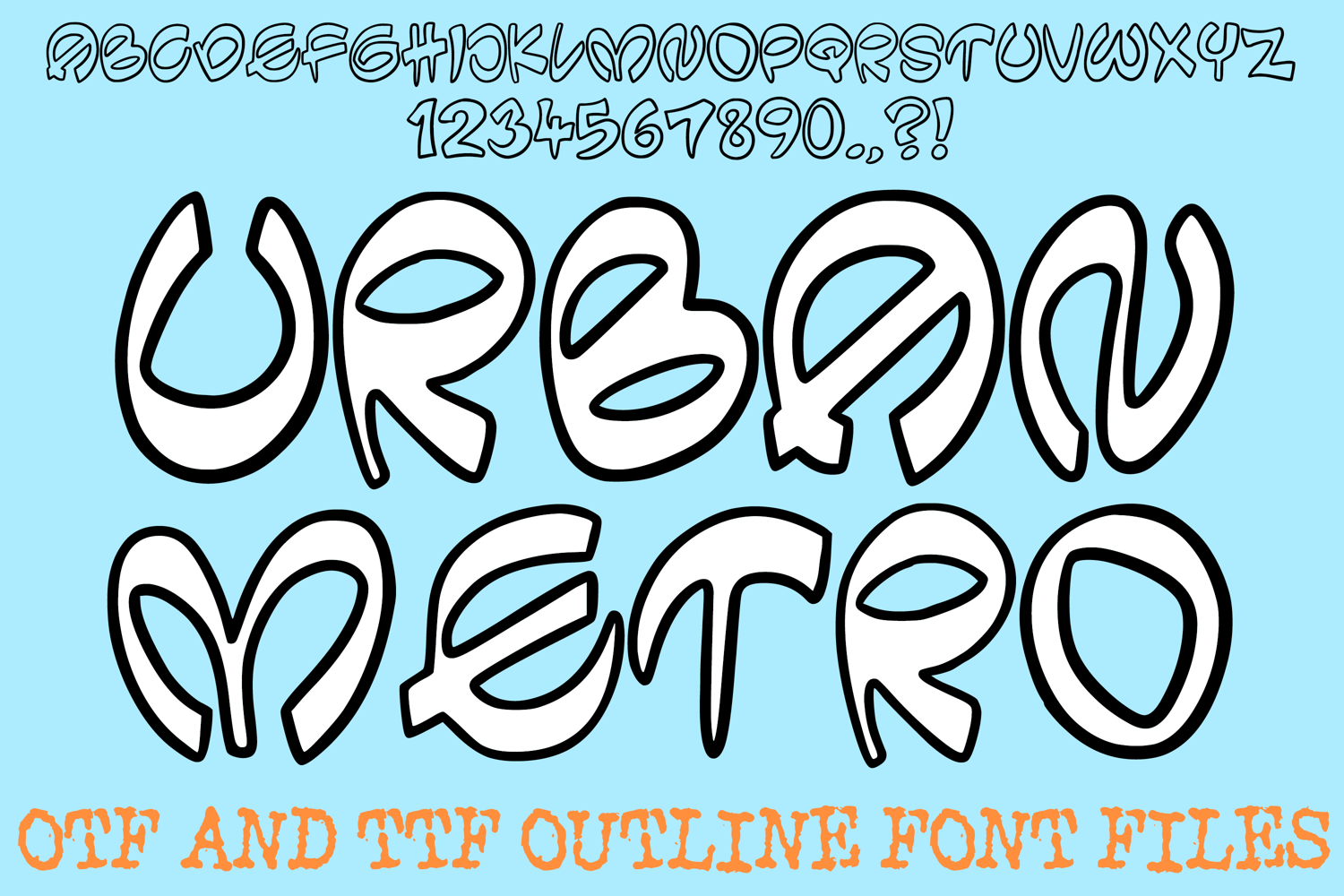
The Urban Metro Font is a dynamic, rhythmic display typeface that captures the fluid motion and raw energy of metropolitan street art. Characterized by its expressive, hand-drawn outlines and flowing transitions, this font is a premier choice for designers working on skate-culture branding, underground music flyers, modern apparel graphics, and high-energy social media content.
The design captures a sense of rapid, artistic movement, where the varying widths and stylized curves of each character suggest the speed and personality of a hand-inked tag. Whether you are building an identity for a city-based creative collective or designing bold headlines for a street-style lookbook, this font provides a handcrafted, urban aesthetic that is both edgy and remarkably legible.
Rhythmic Flowing Strokes: The unique, wavy construction of letters like the 'M', 'W', and 'S' provides a sense of visual harmony and movement.
Raw Hand-Drawn Outlines: Subtle imperfections and organic line weights give the alphabet a tactile, authentic personality that adds a layer of street-style credibility.
Expressive Character Shapes: From the sharp terminals to the elegant loops, every letter is designed to be a standalone piece of art.
High-Impact Display Weight: The bold outlines ensure that your text remains powerful and clear across various digital and print backgrounds.